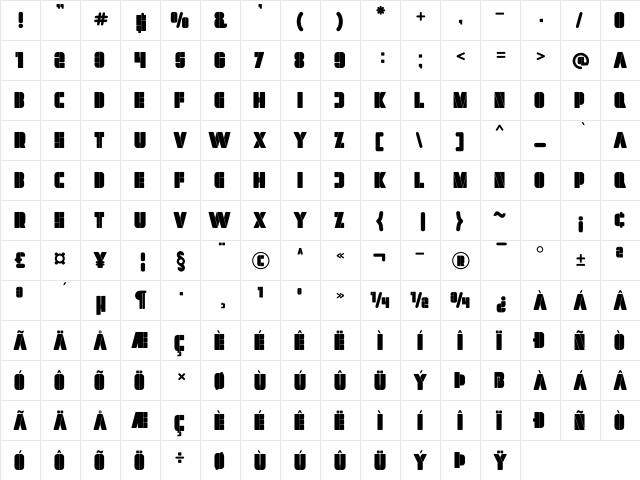
Zucchero Stencil Regular
Design Context for Zucchero Stencil Typeface
Zucchero Stencil borrows the utilitarian aesthetic of stencil lettering, with its characteristic cutaways and no-frills construction lending an industrial edge.
A strong choice for packaging that needs edge, warehouse aesthetics, and rough-and-ready visual identities.
Pro Tip: Use Zucchero Stencil at large sizes on packaging, posters, or apparel where the stencil cutaways read clearly. Avoid small sizes where those gaps become visual noise.